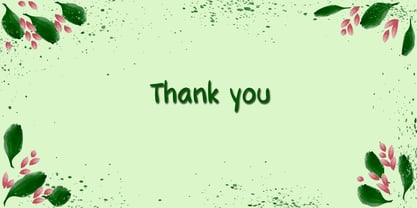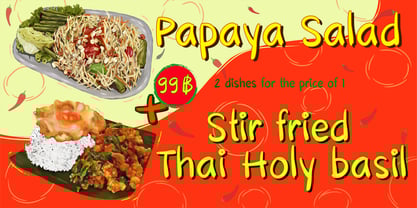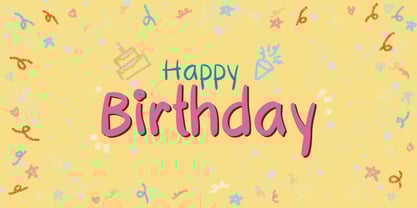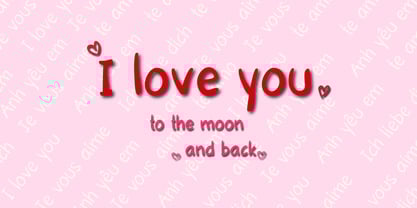
Wiggle Words
Wiggle Words – A Handcrafted Font with Playful Personality
Wiggle Words is a cheerful and free-spirited handwritten typeface that adds warmth, personality, and a touch of whimsy to any design. Inspired by the natural movement of handwriting and the joy of creative expression, this font feels like a casual conversation — imperfect, human, and full of charm.
Every letter in Wiggle Words dances with slight irregularities, giving the typeface a handcrafted, authentic look. It’s not trying to be perfect — it’s trying to be you. Whether you’re working on a personal blog, fun packaging, kids’ products, social media posts, or quirky branding projects, Wiggle Words fits right in.
✦ Why You’ll Love It:
• Authentic handwritten style that feels natural and expressive
• Relaxed and approachable mood that brings life to casual and creative projects
• Full lowercase and uppercase support, punctuation, symbols, and special characters
• Designed for ease of use, with clear legibility even at smaller sizes
Wiggle Words pairs beautifully with clean sans-serif fonts or bold display fonts for extra contrast. Think of it as the playful best friend to your minimal headline fonts.
💡 Perfect for:
• Greeting cards & invitations
• Journal titles & blog headers
• DIY crafts & stickers
• Social media graphics
• Children's books or educational materials
• Personal branding or signature-style logos
Whether you're designing for fun or creating something meaningful, Wiggle Words brings a light-hearted, human touch that feels just right.